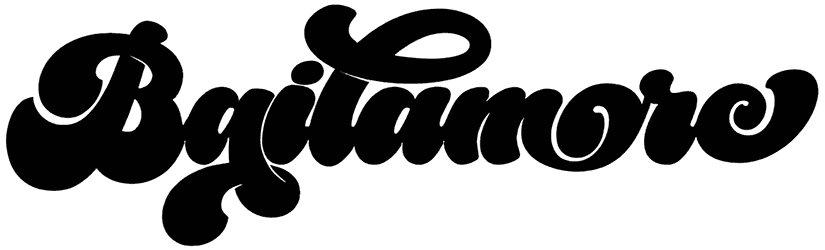
A magical, groovy font, such as Bailamore, can make your graphic content, including animation posters, digital brochures, logos, illustrations, and video game banners, more appealing to the audience. This glamorous masterpiece can diversify your artwork by offering curved and well-rounded characters. Don’t forget this vital point: Conveying a sense of playfulness, vivacity, precision, and momentum is much easier with the help of Bailamore.